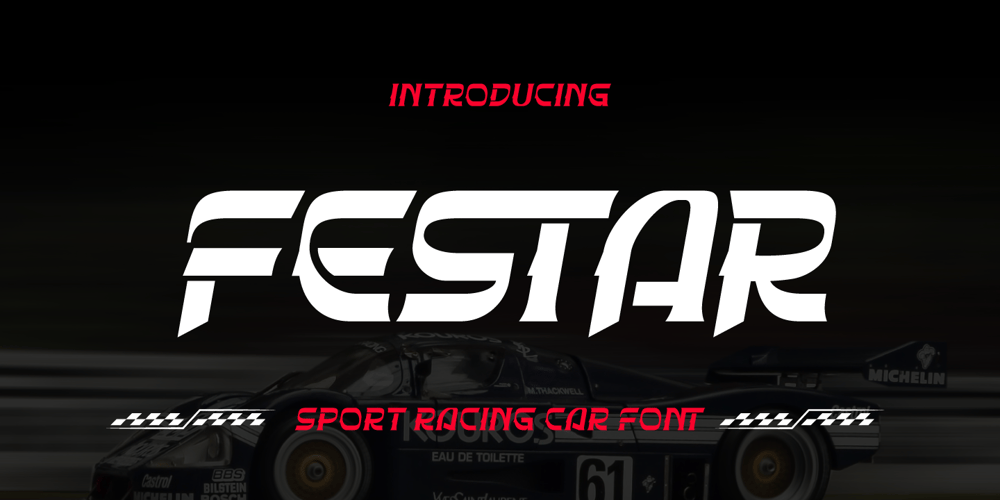
Festar Font Family was designed by Rozikan and published by Twinletter. Festar contains 4 styles and family package options. Festar – Sport Racing Car Font is a dynamic and high-energy typeface inspired by the world of motorsports. With its bold and fast design, Festar is perfect for racing-themed branding, car stickers, event posters, and sports merchandise. This font captures the thrill and adrenaline of the racetrack, adding speed and excitement to your designs.Spice up your projects with Festar’s bold and vibrant style and leave a lasting impression on your audience.**What’s Included:**- All glyphs and Feature- We highly recommend using a program that supports OpenType features and Glyphs panels like many Adobe apps and Corel Draw so that you can see and access all Glyph variations.- PUA Encoded Characters, Fully accessible without additional design software.- Fonts include Multilingual: Support for 85 languages. Afrikaans, Albanian, Asu, Basque, Bemba, Bena, Breton, Catalan, Chiga, Cornish, Croatian, Czech, Danish, Dutch, Embu, English, Esperanto, Estonian, Filipino, Finnish, French, Friulian, Galician, Gusii, Hungarian, Indonesian, Irish, Italian, Kabuverdianu, Kalenjin, Kamba, Kikuyu, Kinyarwanda, Latvian, Lithuanian, Lower, Sorbian, Luo, Luxembourgish, Luyia, Machame, Makhuwa-Meetto, Makonde, Malagasy, Maltese, Manx, Meru, Morisyen, North, Ndebele, Norwegian Bokmål, Norwegian Nynorsk, Nyankole, Oromo, Polish, Portuguese, Quechua, Romanian, Romansh, Rombo, Rundi, Rwa, Samburu, Sango, Sangu, Scottish, Gaelic, Sena, Serbian, Shambala, Shona, Slovak, Slovenian, Soga, Somali, Spanish, Swahili, Swedish, Swiss German, Taita, Teso, Turkish, Upper Sorbian, Uzbek (Latin), Volapük, Vunjo, Walser, Zulu.